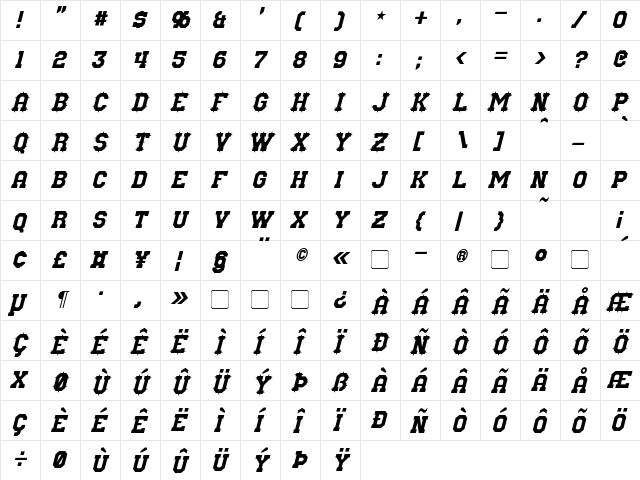
Nuffle Italic
| Foundry | Pixel Sagas |
| Designer | Neale Davidson |
Design Context for Nuffle Typeface
Nuffle is a composed and adaptable typeface that performs quietly and consistently across a wide range of design contexts. The slanted form adds forward momentum and visual energy.
Pro Tip: Use Nuffle for emphasis, pull quotes, and subheadings where its slanted energy can add rhythm to the layout.